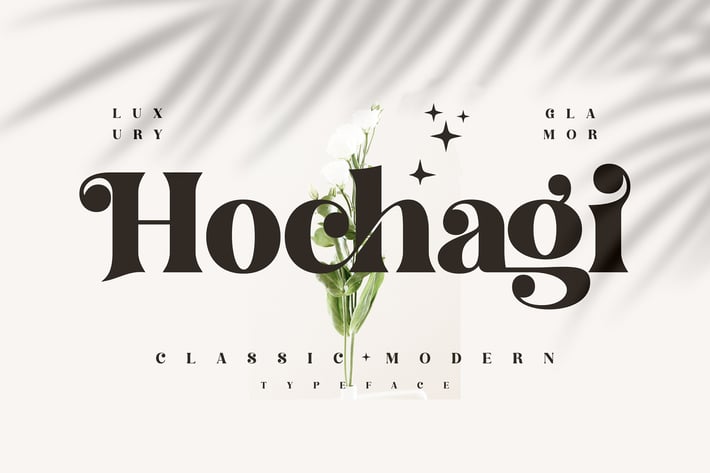
Hochagi Classy Serif Font
Hochagi is a bold, classy serif typeface that blends modern refinement with a touch of vintage charm. Its thick, sculpted letterforms and elegant curves create a luxurious presence, making it perfect for high-end branding, editorial headlines, and stylish packaging that demands sophistication and impact.
Classy serif style with strong contrast and refined detailing
Bold, elegant shapes ideal for premium headlines
Modern-meets-classic aesthetic for versatile upscale design
Perfect for both digital branding and luxury print materials
Luxury brand identities
Editorial layouts & magazine covers
Fashion, beauty, and lifestyle campaigns
Packaging, product labels, and boutique branding
Social media posts & elegant promotional graphics
Invitations & high-end design projects
Bold luxury serif for glamorous, high-impact visual branding.